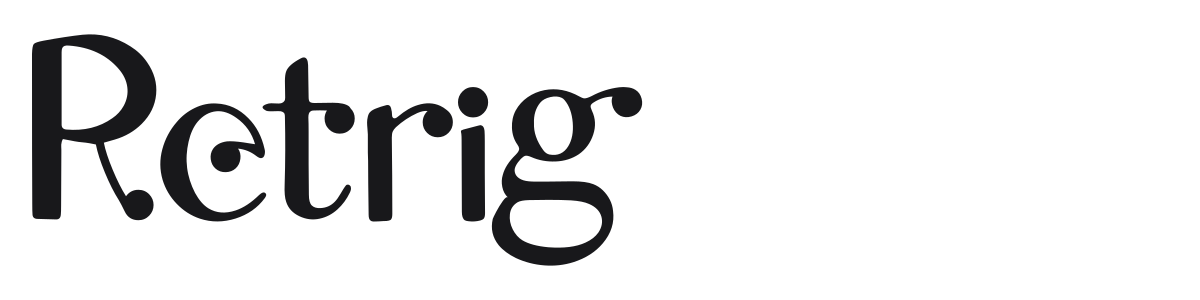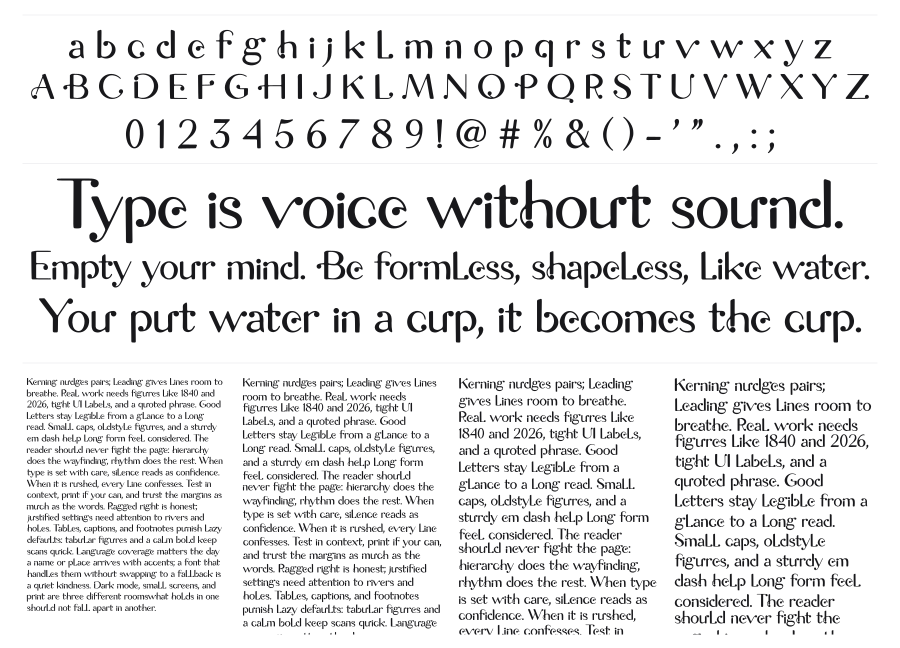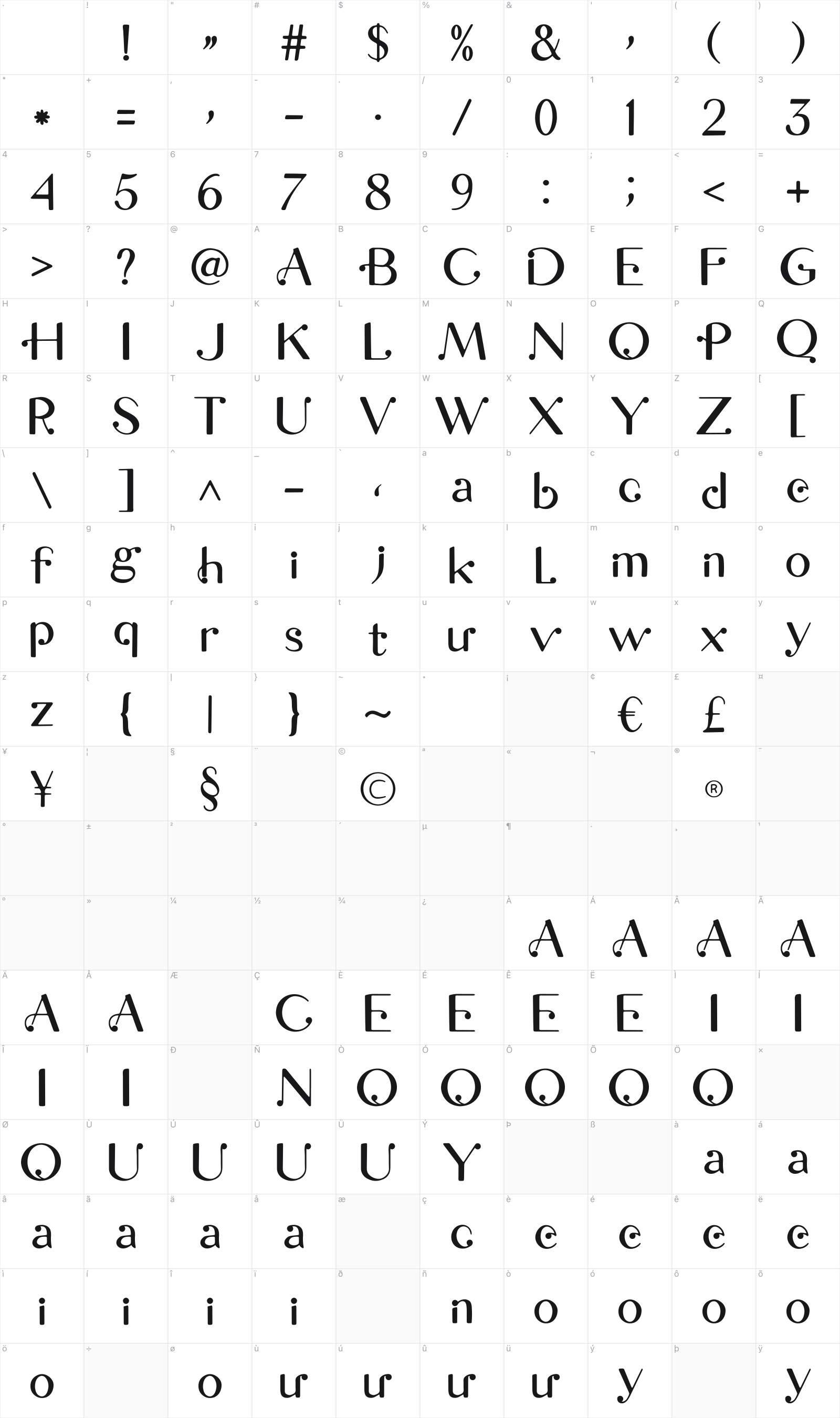
Retrig
Retrig is a high-contrast display serif that mixes sharp pointed stems with plump ball terminals and curling entry strokes. The result is something between calligraphy and Art Nouveau illustration, with enough personality to carry a headline on its own. It works best large, where its eccentricities read as intentional craft rather than inconsistency.